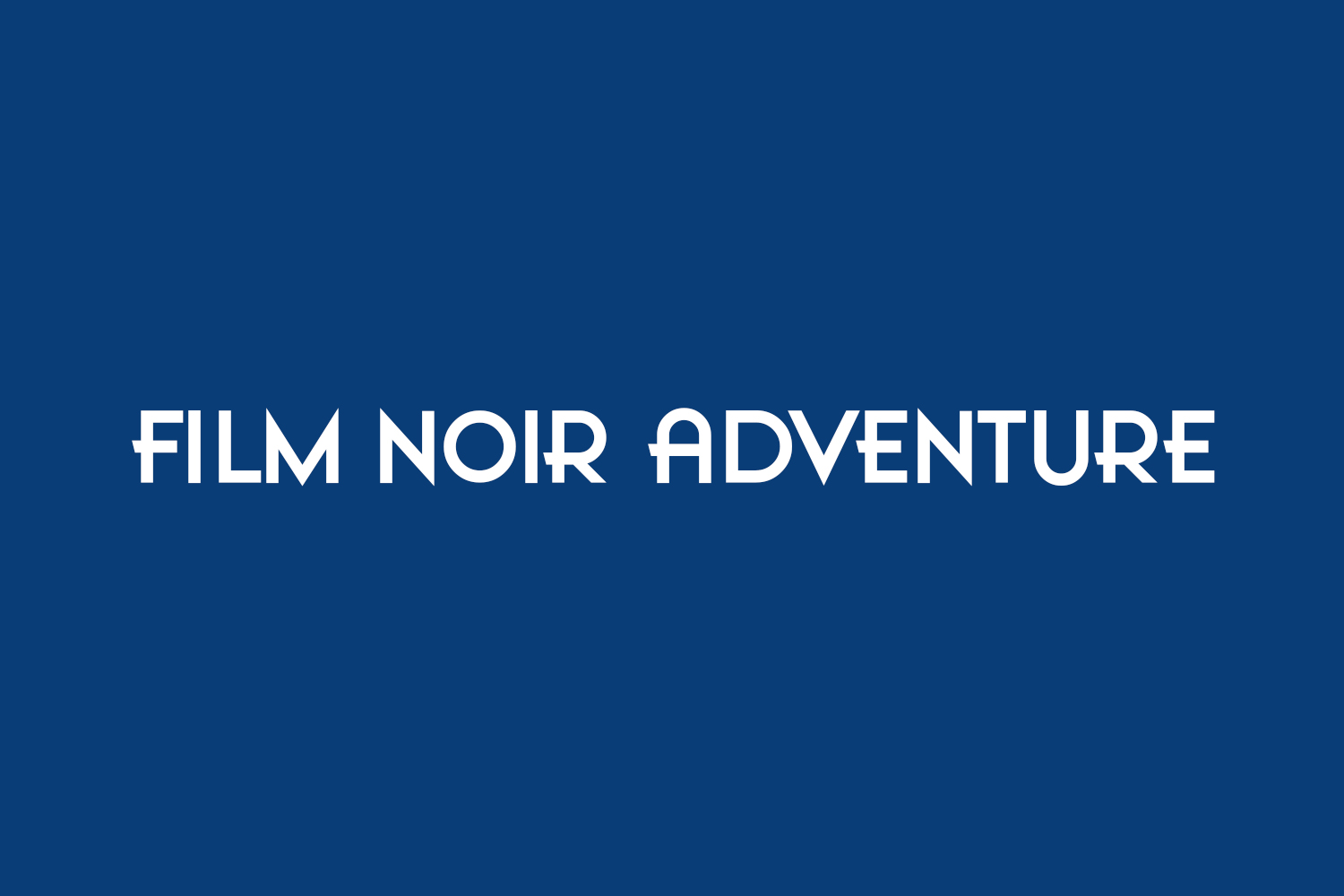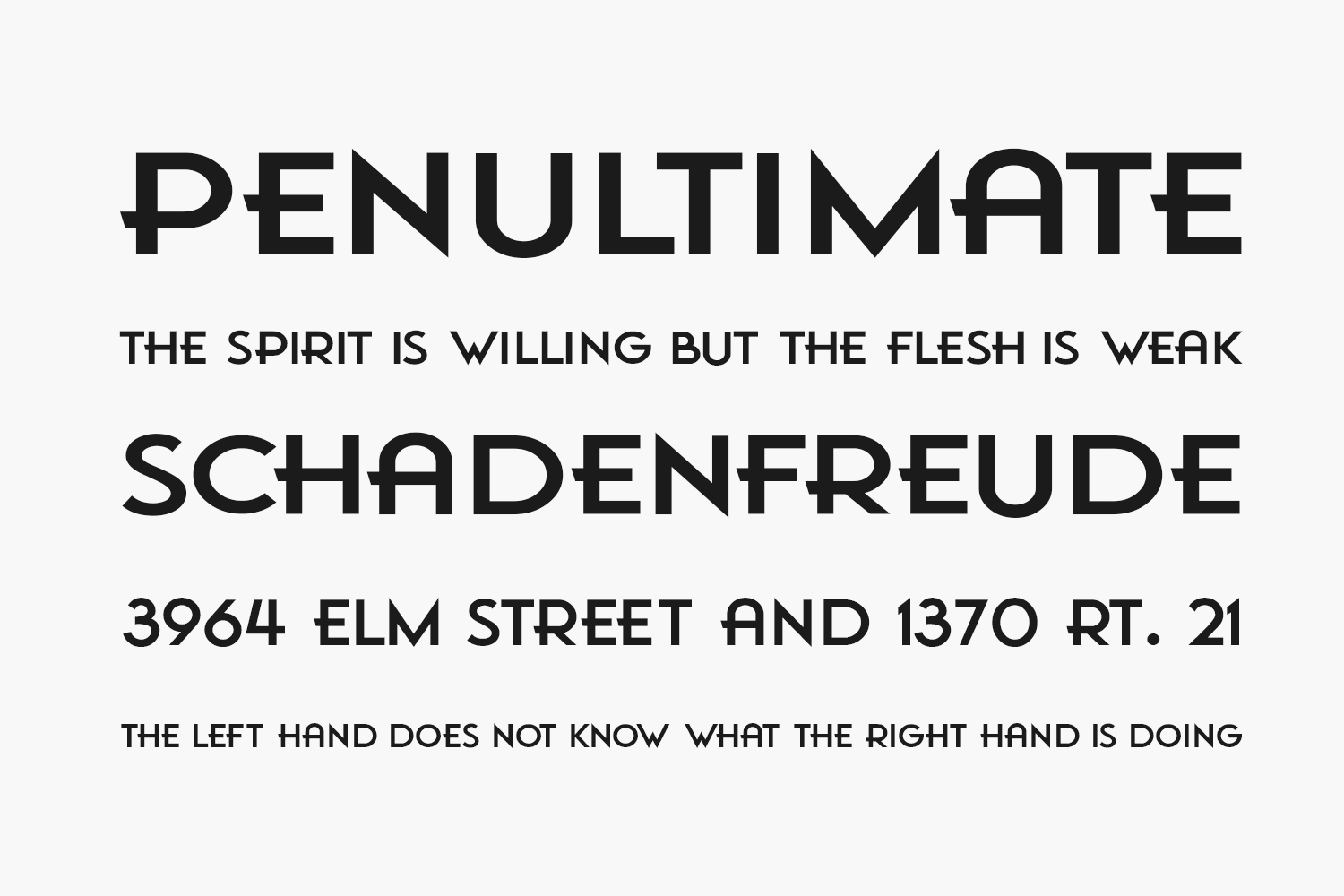
Film Noir Adventure Free Font Family is a crisp, stylish vintage font in an old detective movie style. Perfect for period settings, black and white film projects and general all purpose use. Film Noir Adventure Free Font is free for personal use only. Please purchase the full version for commercial use.
Designed by Hawtpixel